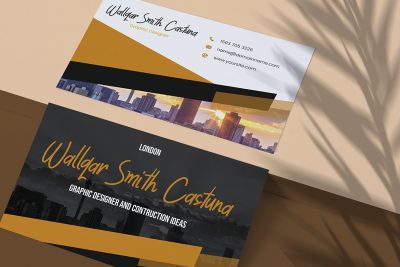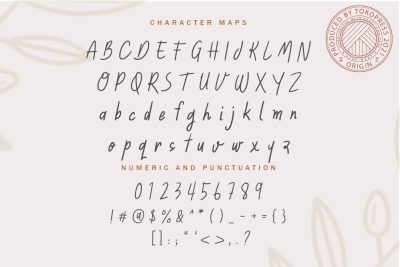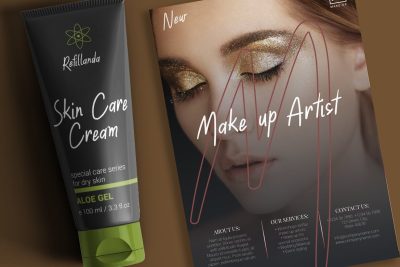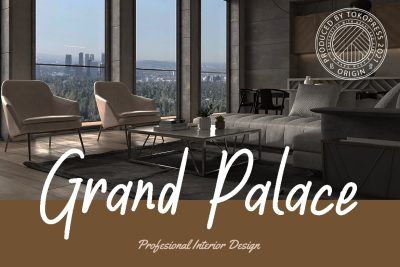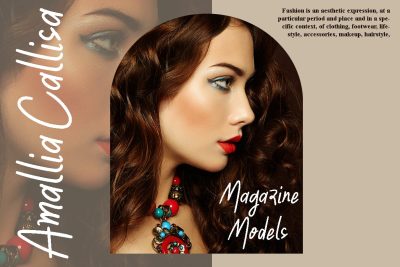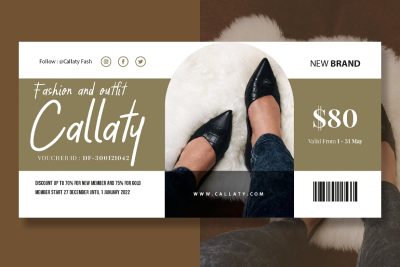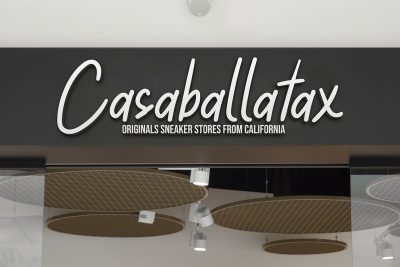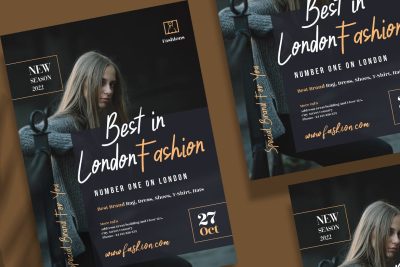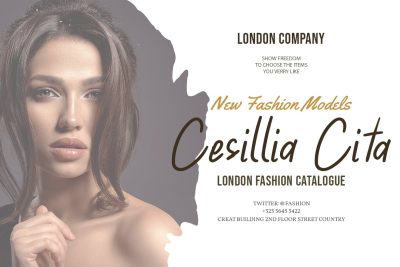
Cute Font Casa Pinada is a stylish and elegant handwriting typeface that brings a modern touch to classic cursive fonts. With a delicate, flowing style, it combines the natural beauty of handwritten letters with a refined, polished look. Each character in Casa Pinada is crafted with smooth, organic strokes, adding an authentic, personal touch to any design. The fontโs thin lines and gentle curves give it a sophisticated charm, while its informal yet balanced structure makes it both playful and professional.
Casa Pinadaโs versatility shines through in its adaptability to various design contexts. It pairs effortlessly with other typefaces, whether used as a main display font or a supporting accent. Casa Pinada adds personality without overpowering the design, giving it an inviting, human feel. Its light strokes are easy on the eyes, yet the fontโs overall structure maintains readability, even at smaller sizes. This makes Casa Pinada perfect for those looking to add warmth and elegance to their projects while keeping a clean, modern aesthetic.
Cute Font Casa Pinada Ideal For:
Casa Pinada is ideal for brands, designers, and creators who want to infuse elegance, warmth, and personality into their designs. This font is especially suited for lifestyle brands, fashion labels, and wellness products, where a touch of sophistication is essential. Casa Pinadaโs stylish and handwritten look makes it perfect for branding elements like logos, packaging, and promotional materials. It aligns well with brands that emphasize authenticity and refinement, appealing to audiences who appreciate quality and aesthetics.
Additionally, Casa Pinada works beautifully in personal projects such as wedding invitations, greeting cards, and event signage. Its elegant yet approachable feel suits celebratory designs, creating a memorable and stylish impression. Casa Pinada adds a graceful, personal touch to wedding stationery, party decor, and seasonal cards, making these occasions even more special.
Digital creators and social media influencers will also find Casa Pinada to be an asset for visual content. It enhances blog graphics, Instagram posts, and Pinterest pins with its friendly, sophisticated style. For lifestyle bloggers, Casa Pinada can elevate posts about fashion, decor, or wellness, adding a cohesive and stylish vibe to their brand. In short, Cute Font Casa Pinada is a versatile, charming font that enriches any project with elegance and personality.